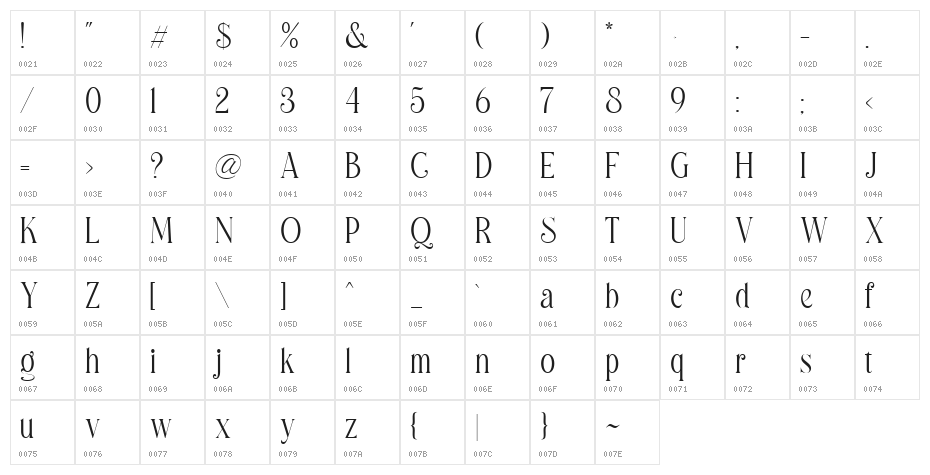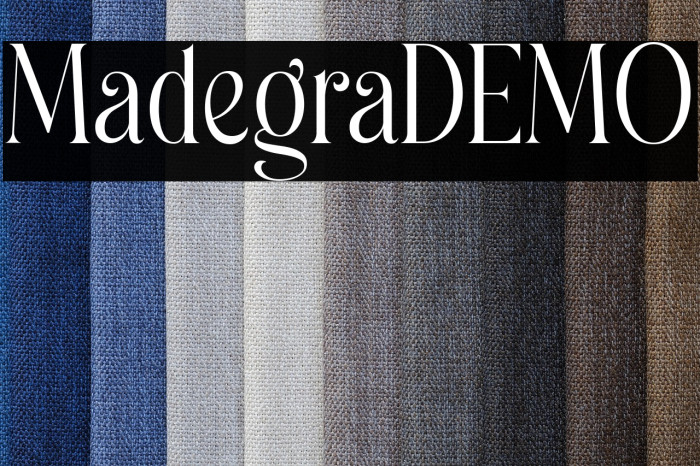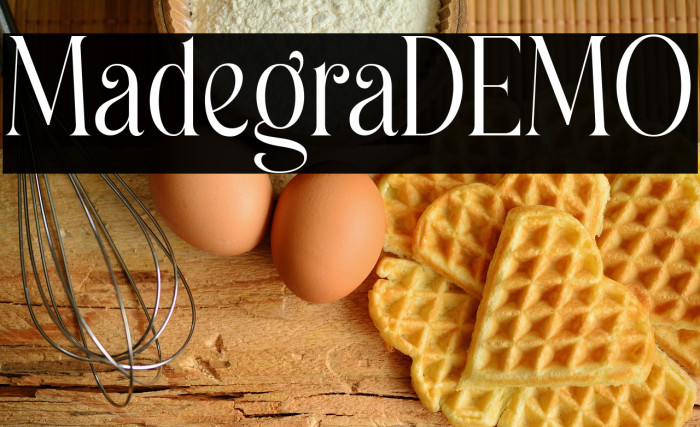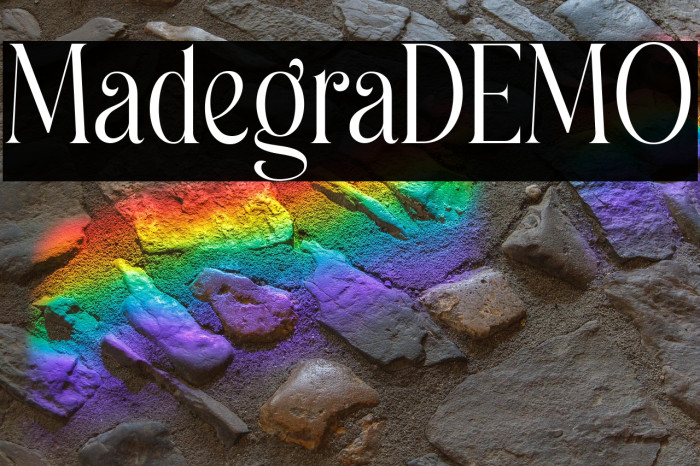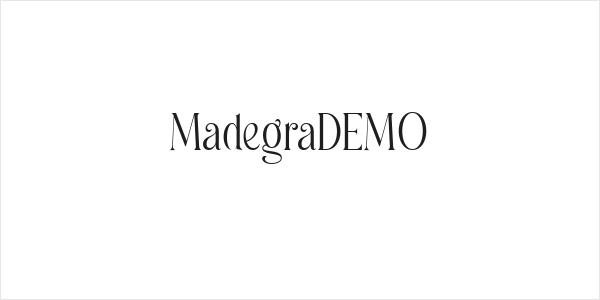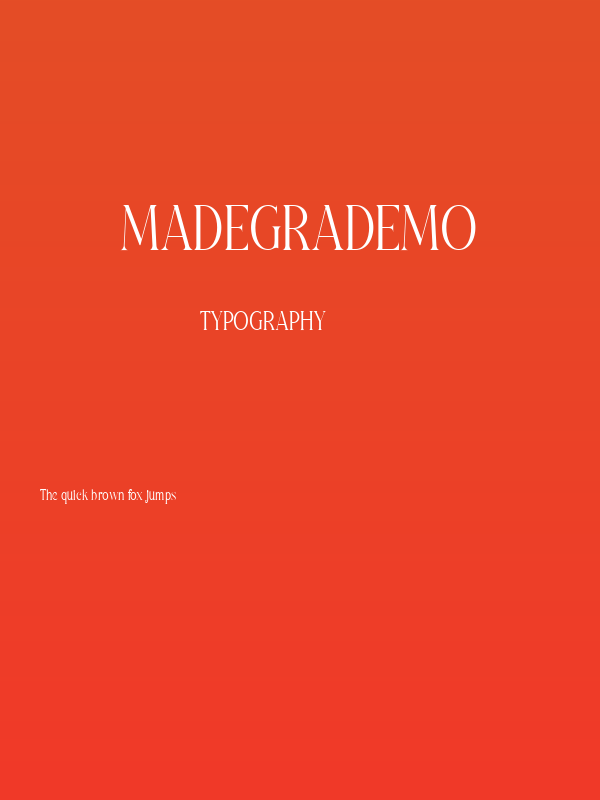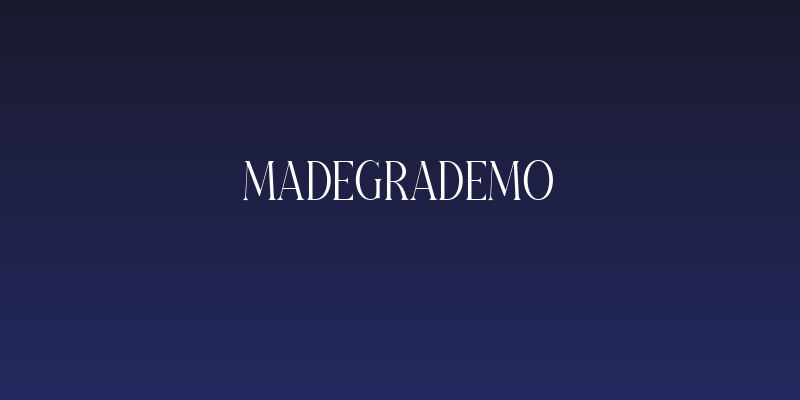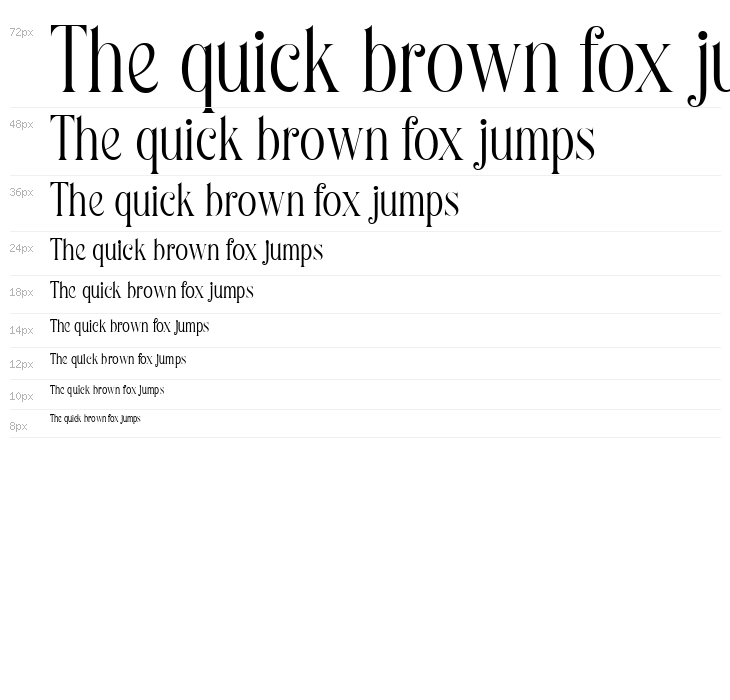
MadegraDEMO Font
MadegraDEMO Description
This font features a sophisticated and elegant design with high contrast between thick and thin strokes, giving it a refined and classic appearance. The serifs are pronounced and slightly curved, adding a touch of elegance and fluidity to the characters. The uppercase letters are tall and commanding, while the lowercase letters maintain a consistent and harmonious flow. The numerals are distinct and easy to read, with a slight flair that matches the overall style of the font. Special characters are well-integrated, maintaining the font's cohesive look. This typeface is ideal for projects that require a touch of sophistication and class.
| Use Case | Headlines, Logos, Editorial design |
| Proposed Projects | Ideal for luxury branding, editorial design, wedding invitations, and high-end product packaging. |